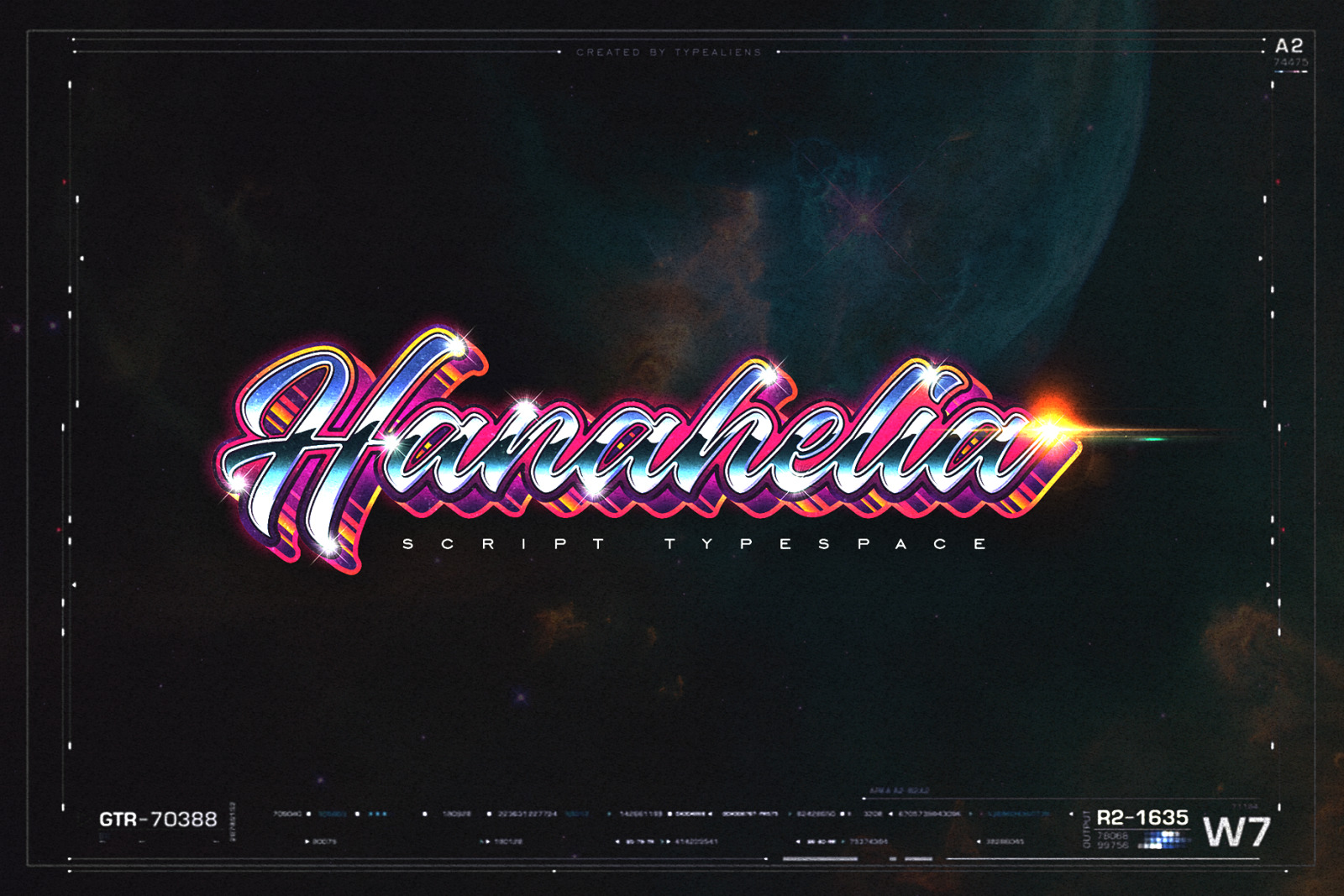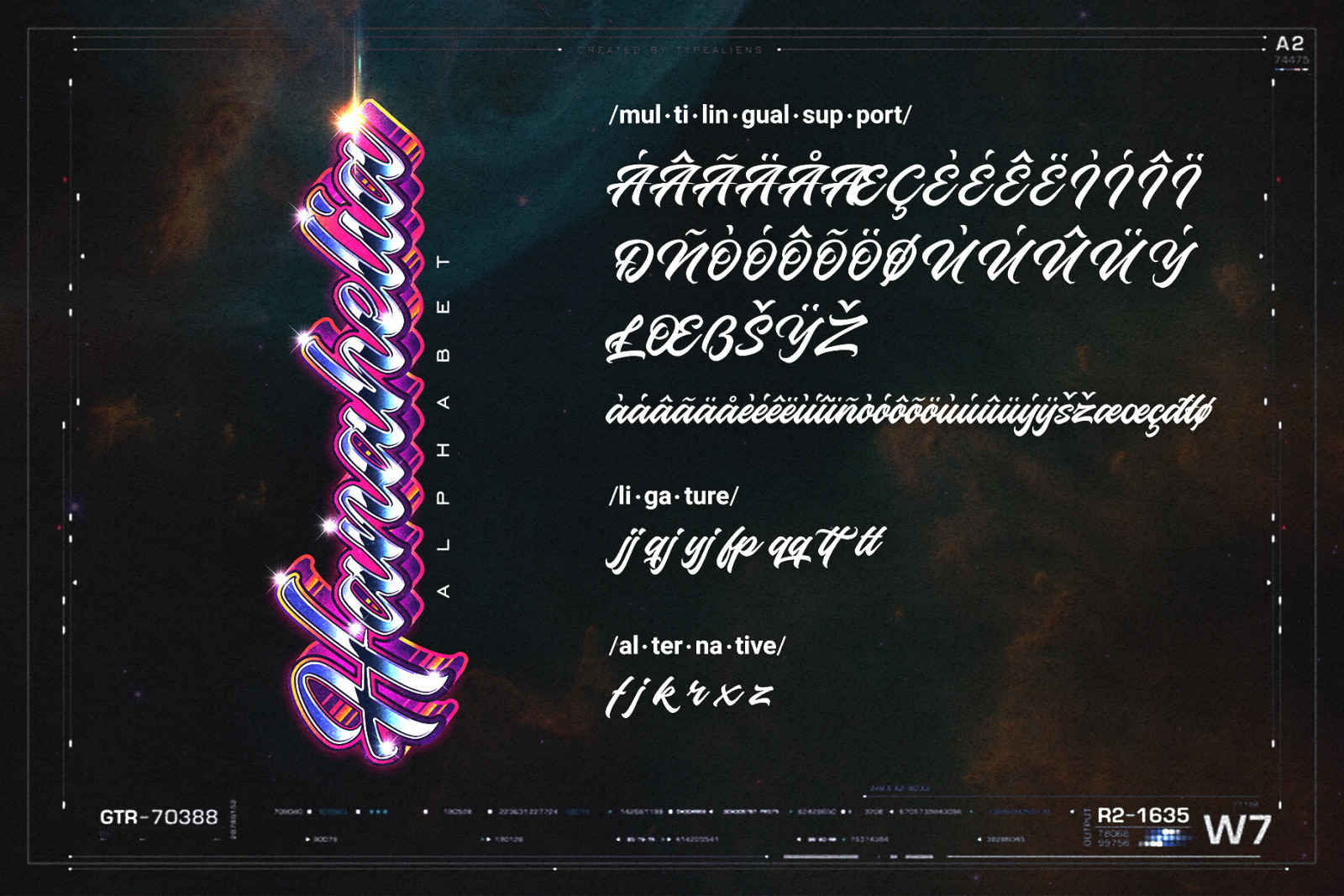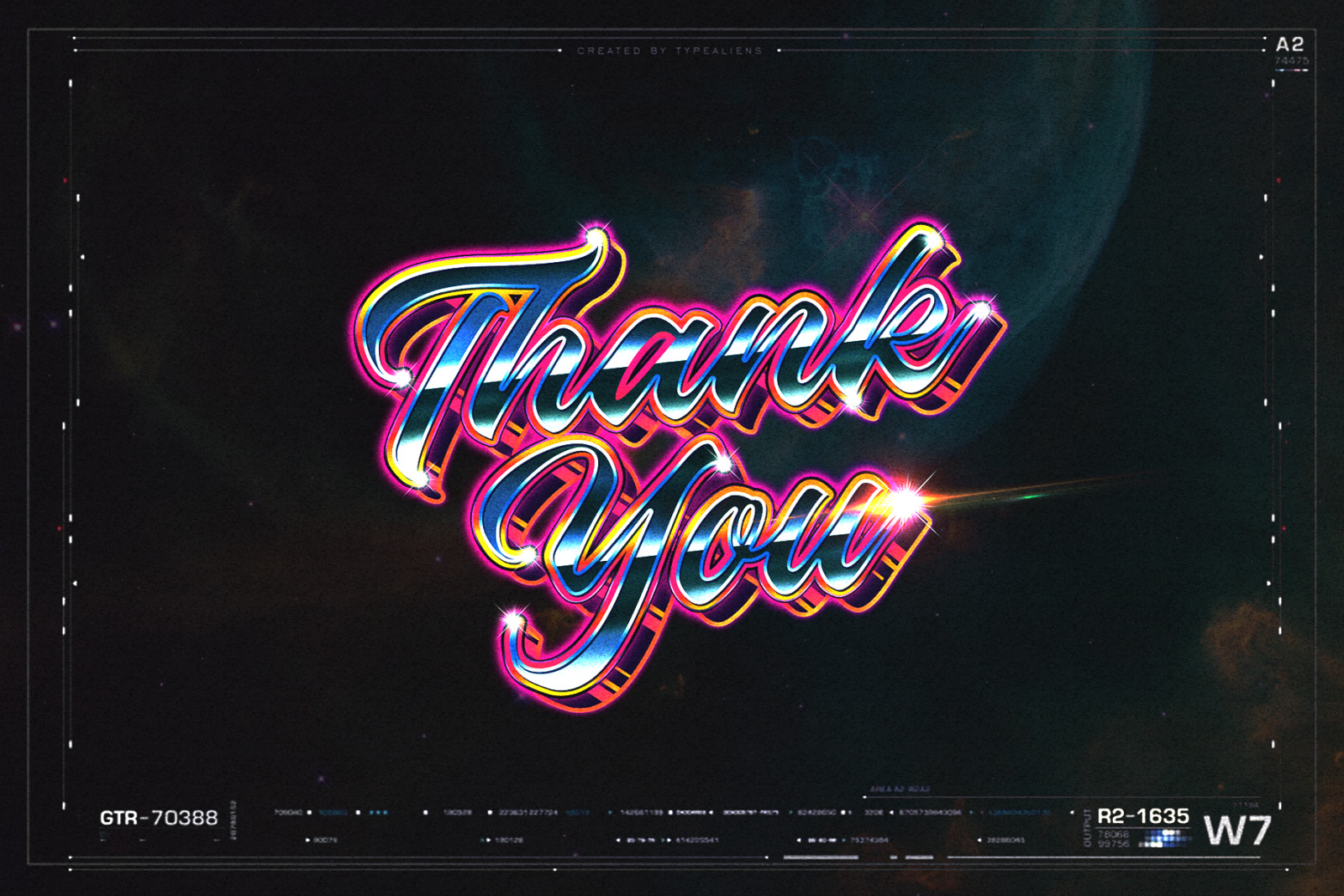
Hanahelia Font
HANAHELIA is a modern script suitable for displaying layout designs in the 80s. By adding neon and shiny effects, this font is perfect for designing logotypes, posters, flyers, advertisements, etc.
Even though it is in a classic style, this font will be very beautiful if you want a clean and elegant modern design.
Features : Alternate Characters. Ligatures. Discretionary Ligatures. Support Multilingual Characters.